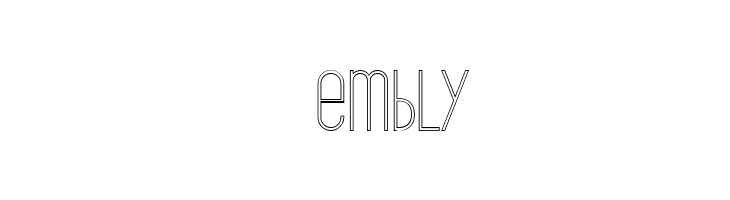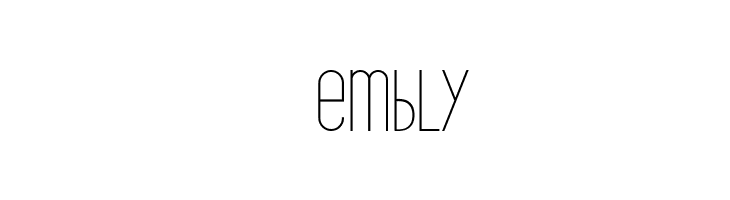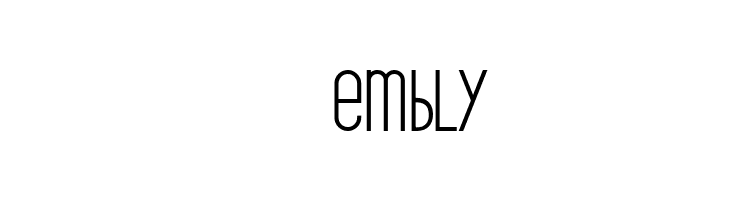
The Copenhagener Bold Font
A modern, geometric font with tall, narrow characters and unique styling.
The Copenhagener Outline Font
A modern outline font with a clean, artistic style.
The Copenhagener Font
A sleek, modern font with tall, narrow characters and a minimalist design.